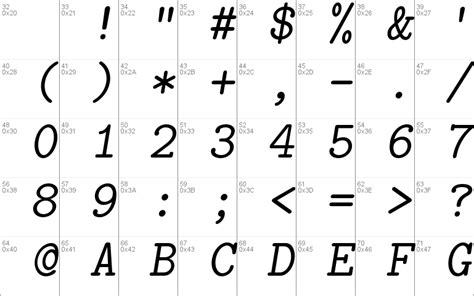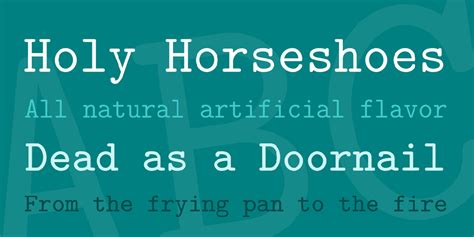
Latin-Modern-Mono Google Fonts : Latin Modern Mono Prop Light Windows font - free for Personal - Latin modern mono free font family is derived from the famous computer modern fonts designed by donald e.. Knuth and described in volume e of his computers & typesetting series. Choose modern browsers if supporting old browsers is not relevant. Knuth and first published by the american matematical society (ams) in 1997. Computer modern is the original family of typefaces used by the typesetting program tex. Knuth and described in volume e of his computers & typesetting series.
Computer modern is the original family of typefaces used by the typesetting program tex. The latin modern fonts are derived from the famous computer modern fonts designed by donald e. Choose modern browsers if supporting old browsers is not relevant. Please research the license information before using it. Knuth and described in volume e of his computers & typesetting series.
One of the main extensions is the addition of an extensive set of diacritical characters.
Knuth and described in volume e of his computers & typesetting series. Some fonts on google web fonts support multiple character sets. The latin modern fonts are derived from the famous computer modern fonts designed by donald e. Andale mono is a highly legible monospaced font designed with the needs of terminal emulation and software development environments. Latin modern mono free font family is derived from the famous computer modern fonts designed by donald e. One of the main extensions is the addition of an extensive set of diacritical characters. Choose the most suitable option to install the font and add this code to your site (paste it immediately after the opening tag <head>) Please research the license information before using it. The latin modern fonts are derived from the famous computer modern fonts designed by donald e. Latin modern mono 9 regular version: The latin modern fonts are derived from the famous computer modern fonts designed by donald e. It offers a traditional look with a feel choice the latin modern mono font is highly reminiscent of typewriter fonts with a modern twist and flair. Download latin modern mono 10 oblique font | 20 styles free font.
The latin modern fonts are derived from the famous computer modern fonts designed by donald e.